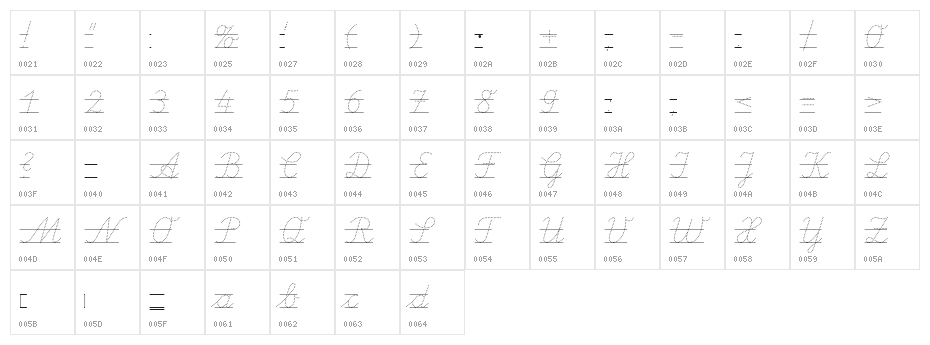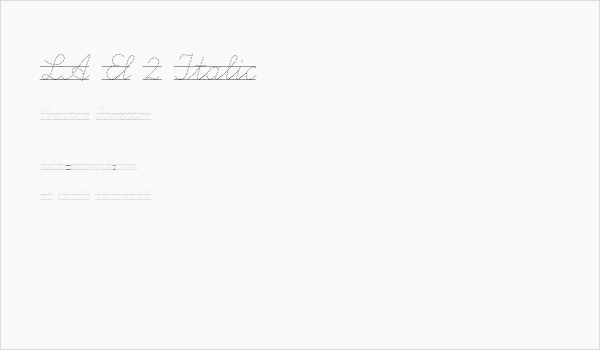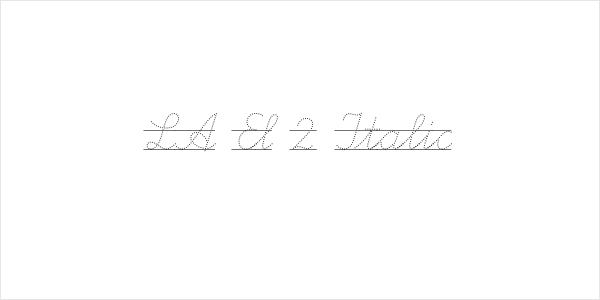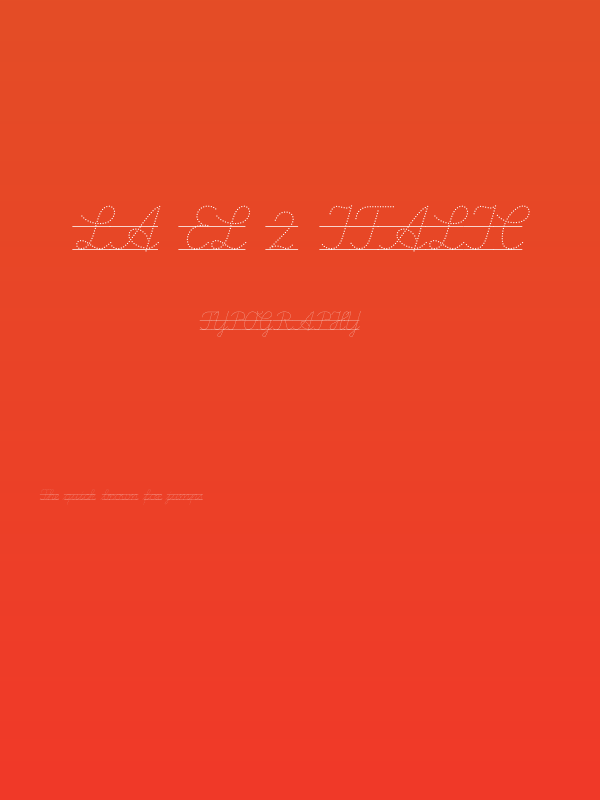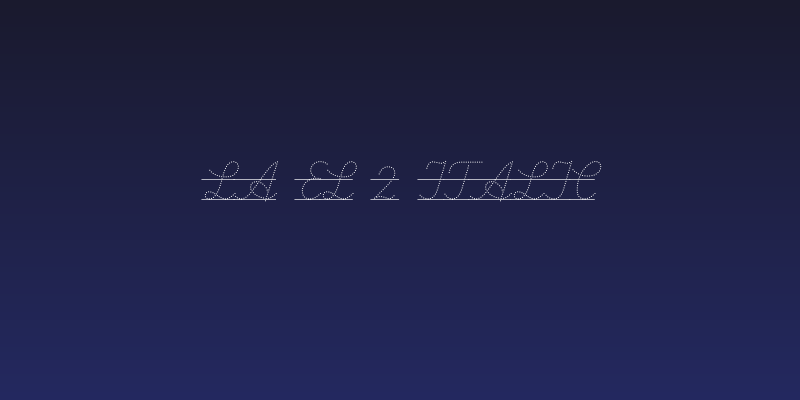
LA El 2 Italic Font
LA El 2 Italic Description
This font is a dotted, cursive style designed to aid in handwriting practice. Each character is formed with evenly spaced dots, providing a guide for learners to trace over. The uppercase and lowercase letters are connected, reflecting a traditional cursive script. Numbers and special characters follow the same dotted pattern, ensuring consistency across all elements. The slanted, italicized style adds a fluid, elegant touch, making it suitable for educational purposes. The font's design emphasizes clarity and ease of use, making it an excellent tool for teaching cursive writing.
| Overall Style | Educational |
| Use Case | Handwriting practice, educational materials. |
| Proposed Projects | Ideal for educational materials, handwriting worksheets, and practice books. |